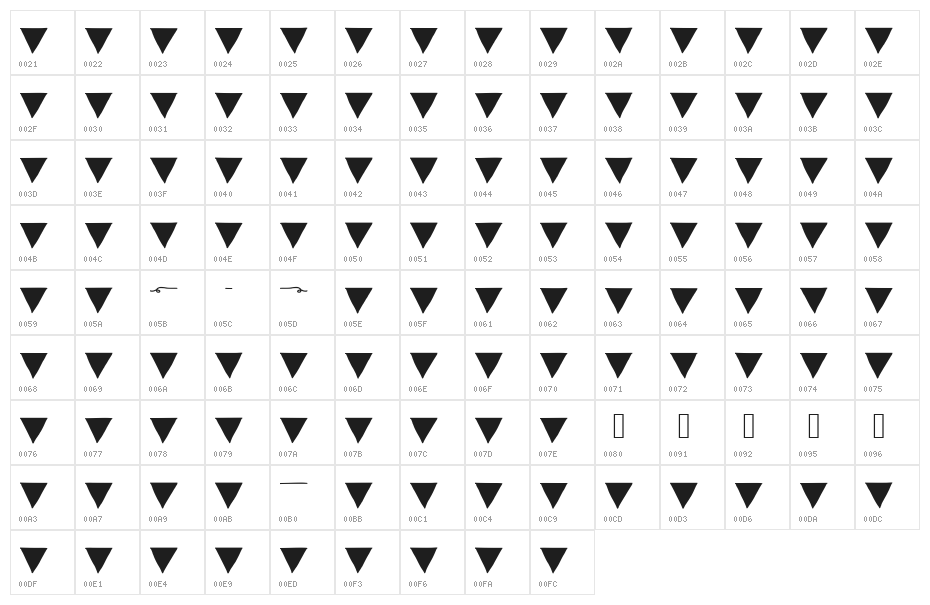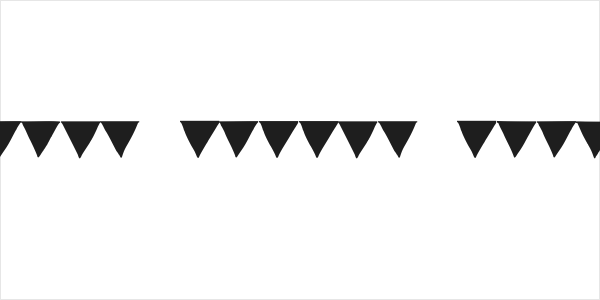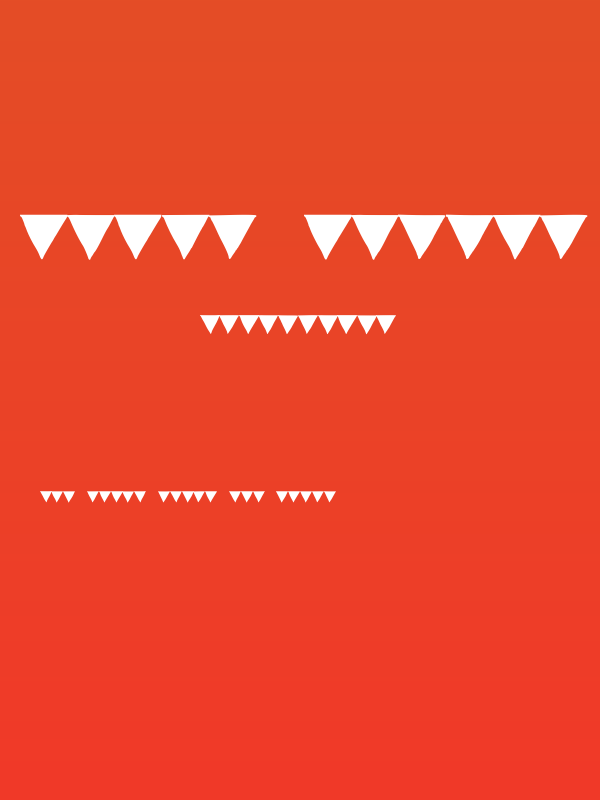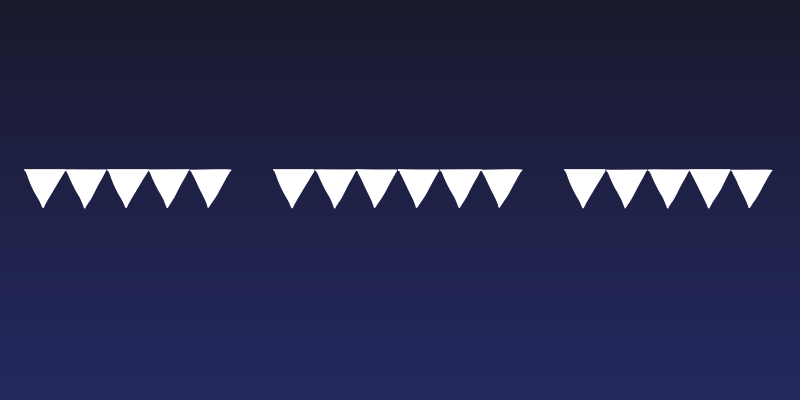
Paper Banner Black Font
Paper Banner Black Description
A decorative font consisting of solid black triangular shapes resembling paper banner flags arranged in rows.
| Overall Style | Playful, festive, decorative |
| Use Case | Headlines, decorative accents, event branding |
| Proposed Projects | Party invitations, festive event posters, children's book covers, celebratory branding. |